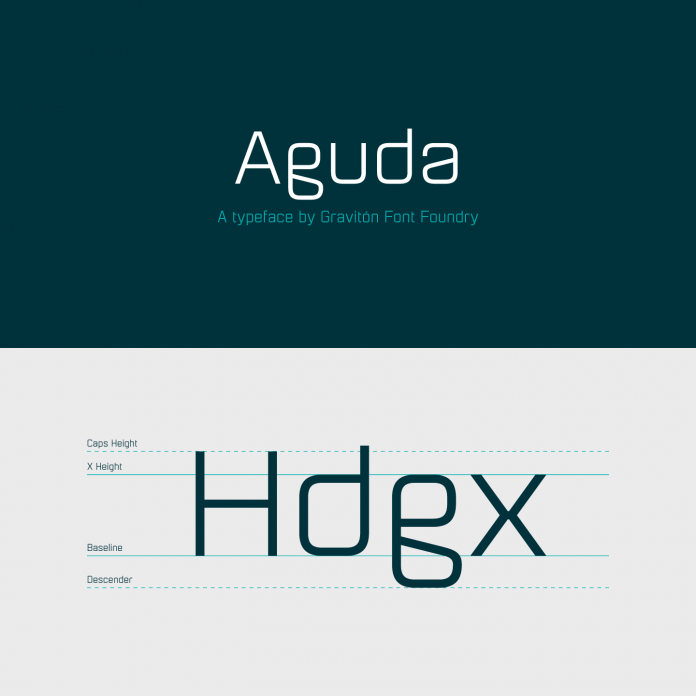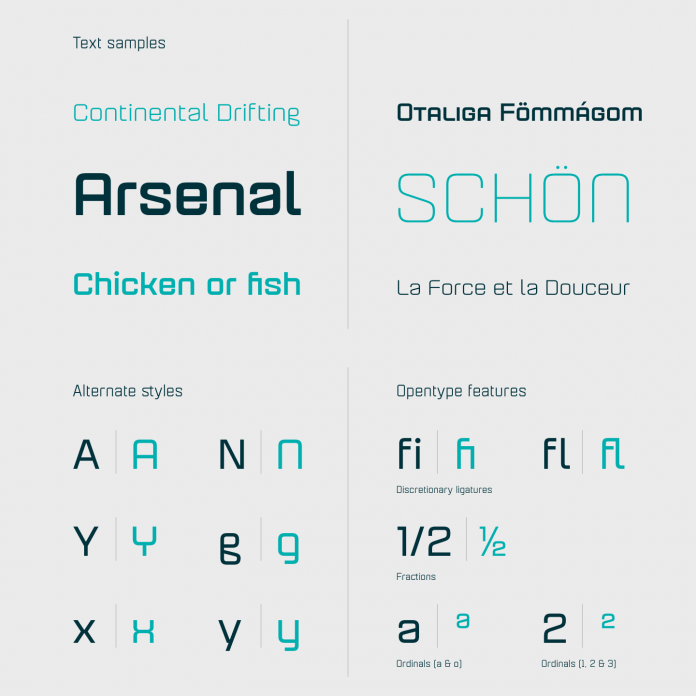
The Aguda font family, a modular and geometric typeface from foundry Graviton.
Pablo Balcells, a type designer from Argentina has created the Aguda font family for foundry Graviton in 2014. The Aguda font family is characterized by a modular and geometric structure. Its skillful design is both elegant and futuristic at the same time. This typeface has been conceived to be primarily a display font, but because of its clean lines and good readability its also well suited for short texts. Aguda comes with 4 weights ranging from Light to Black. Each weight is equipped with numerous alternate characters as well as OpenType features such as Discretionary Ligatures, Fractions, and Ordinals. The complete family is available as web font as well as desktop font.